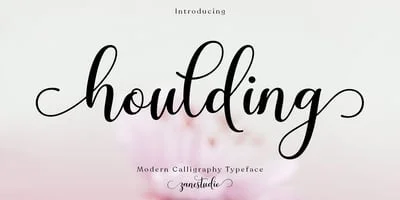
Houlding Script
Houlding Script Font
Houlding Script Font is perfect for luxury brand signatures, elegant wedding invitations, high-end fashion logos, sophisticated wine labels, premium certificate designs, and exclusive event stationery.
Houlding Script Font is exciting because it masterfully combines traditional calligraphy heritage with contemporary elegance, delivering a refined script typeface that exudes sophistication and timeless class.
The Houlding Script Font family includes distinguished variations: Houlding Script Regular, Houlding Script Bold, ornamental swashes, contextual ligatures, and decorative flourishes that enhance the aristocratic character.
Experience typographic excellence with Houlding Script Font, a distinguished script typeface that brings aristocratic elegance and refined sophistication to your most prestigious design projects. This exceptional font excels in creating memorable identities for luxury hotels, exclusive private clubs, fine dining establishments, and premium service providers that cater to discerning clientele expecting nothing but the finest presentation. The meticulously crafted letterforms feature flowing strokes and classical proportions that communicate heritage, quality, and exclusivity while ensuring perfect legibility across all luxury applications. Perfect for champagne house branding, high-end real estate marketing, boutique law firms, and diplomatic correspondence that demands the utmost in typographic refinement, this font speaks to audiences who appreciate craftsmanship and tradition. Each character flows with dignified grace, making every word feel like a distinguished signature from a bygone era of elegance. Houlding Script Font transforms professional communications into statements of uncompromising quality and sophisticated taste.